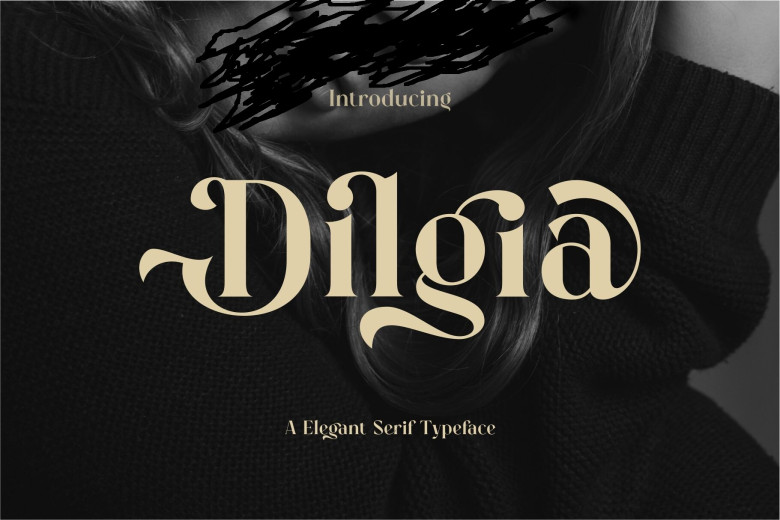
Dilgia Font
Dilgia is a minimalist elegant serif font, based on the famous logo, suitable for the design of templates, brochures, videos, advertising, brands, logos, invitations, layouts, elegant and beauty designs, and more. It is also worth mentioning that, this font is encoded that is why you can use all the great glyphs and ligatures with no problem!
Dilgia Serif Font